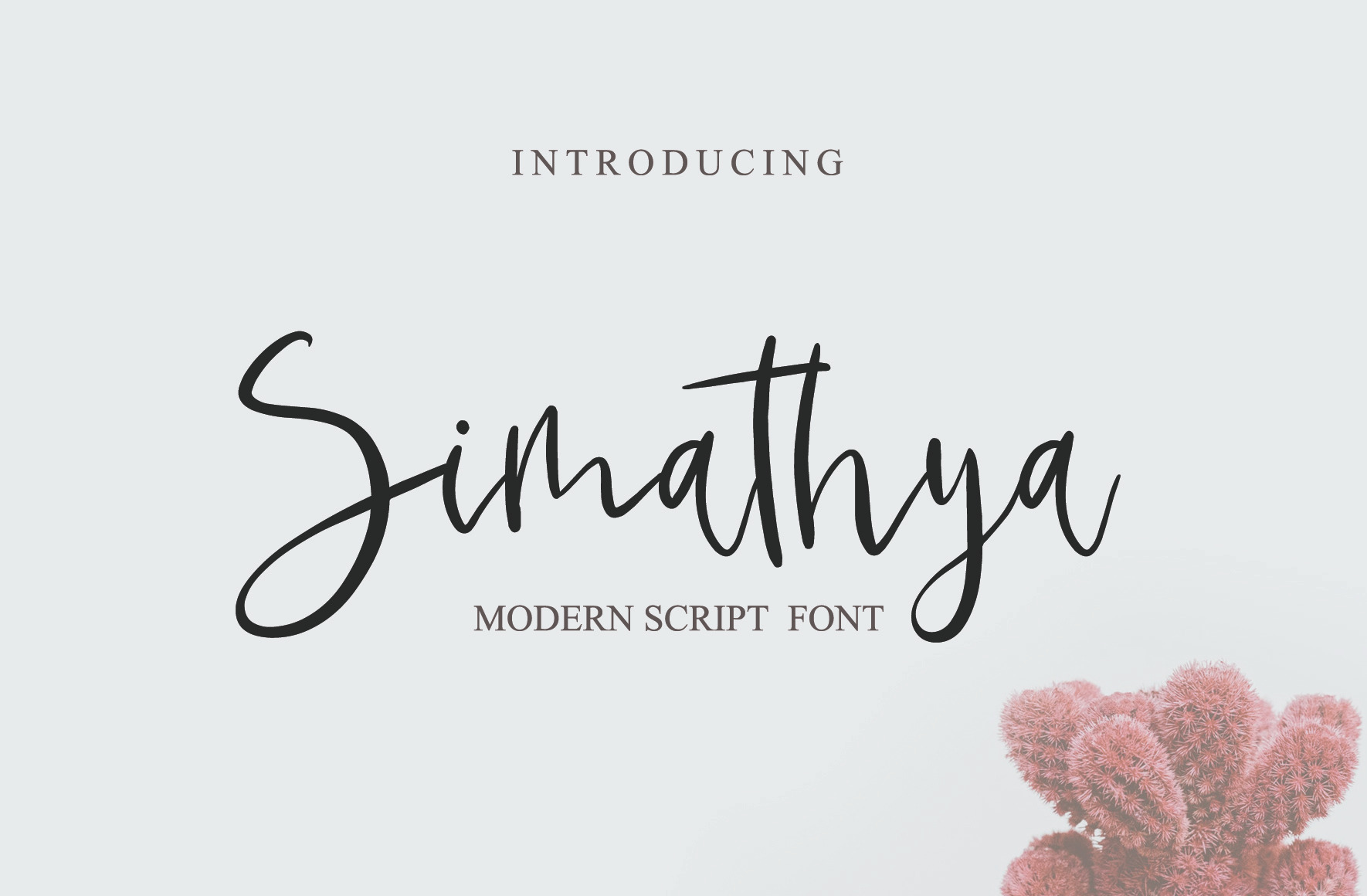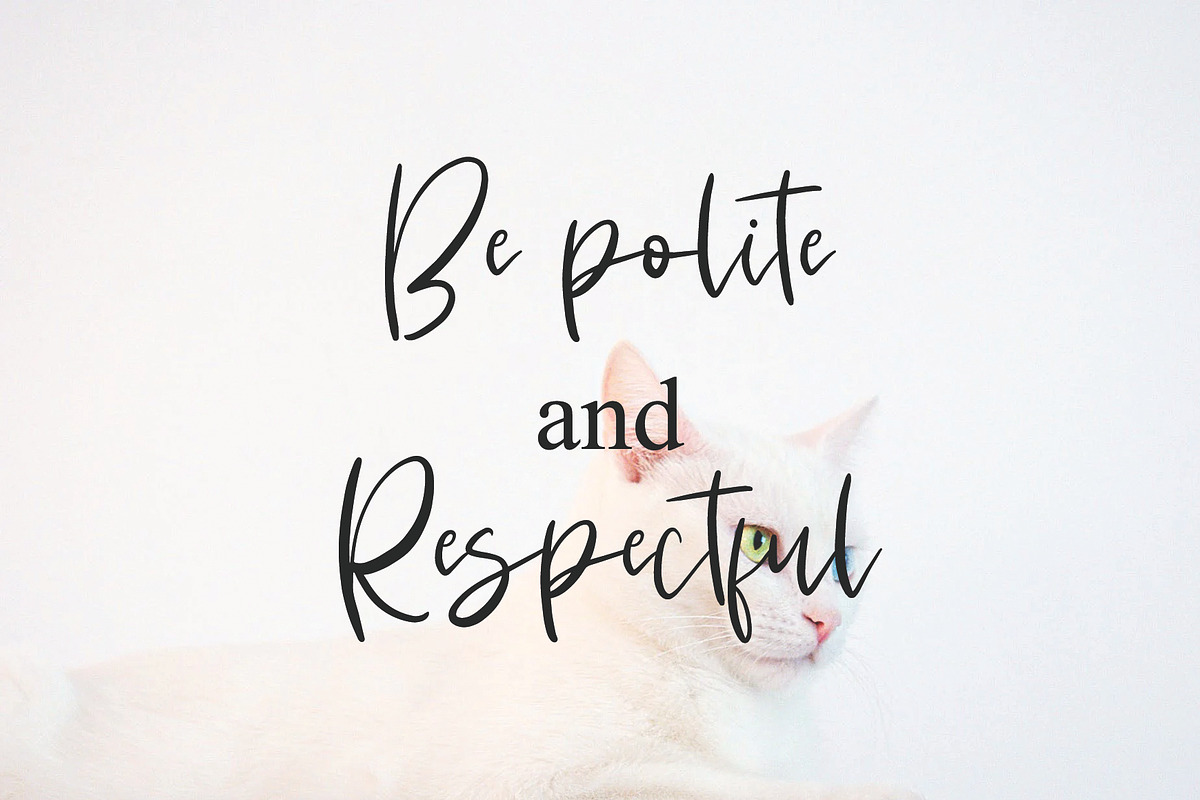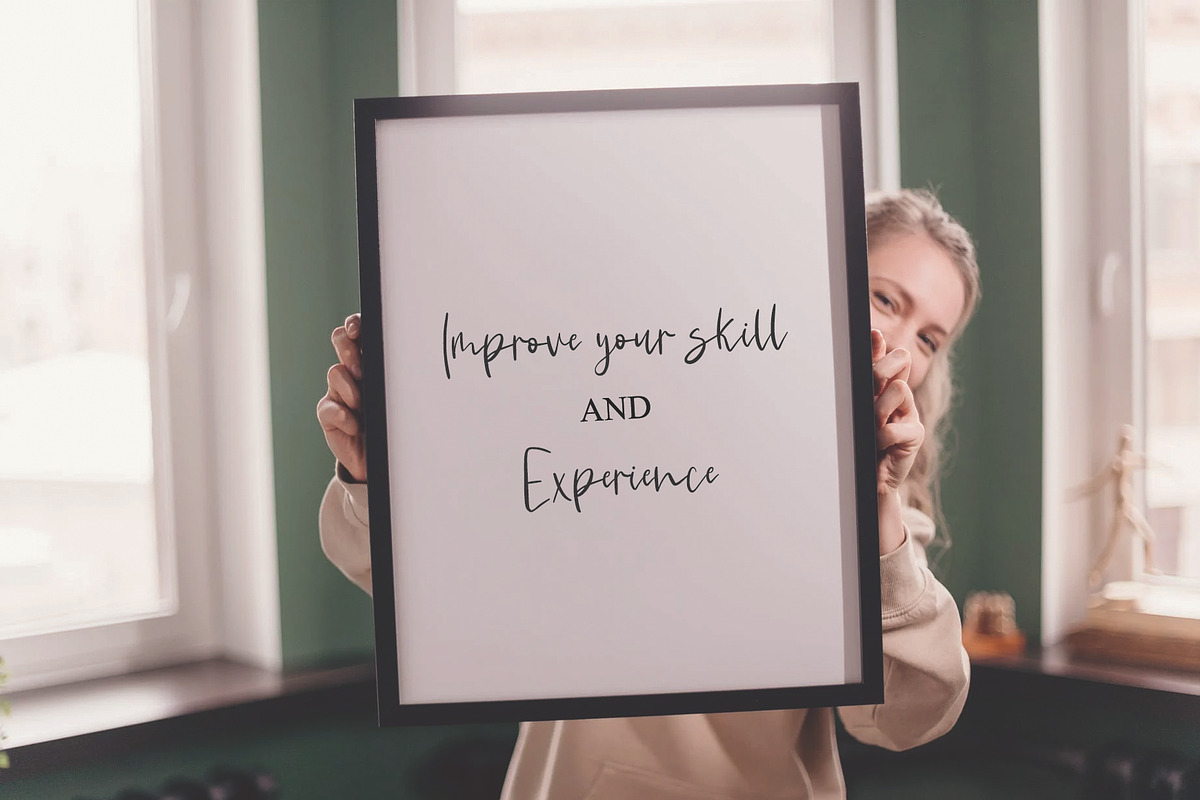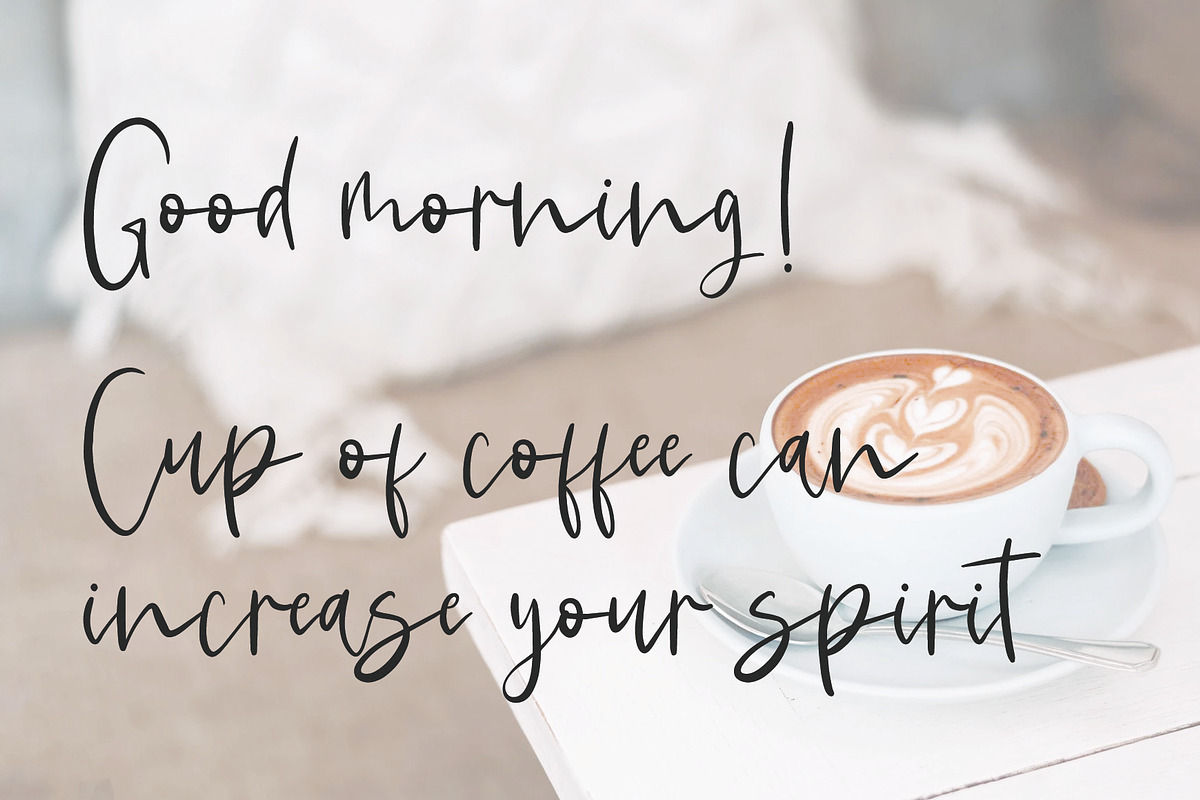
Simathya - Script Font
Simathya Handwritten Font is a unique, cool and modern handwritten font. it is perfect for t-shirt designs, logos, packaging designs, blog titles, labels, shop names and more. simathya will definitely make your designs stand out.
Simathya comes with upper and lowercase Basic Characters, Numbers, ligatures, Marks and Punctuation.